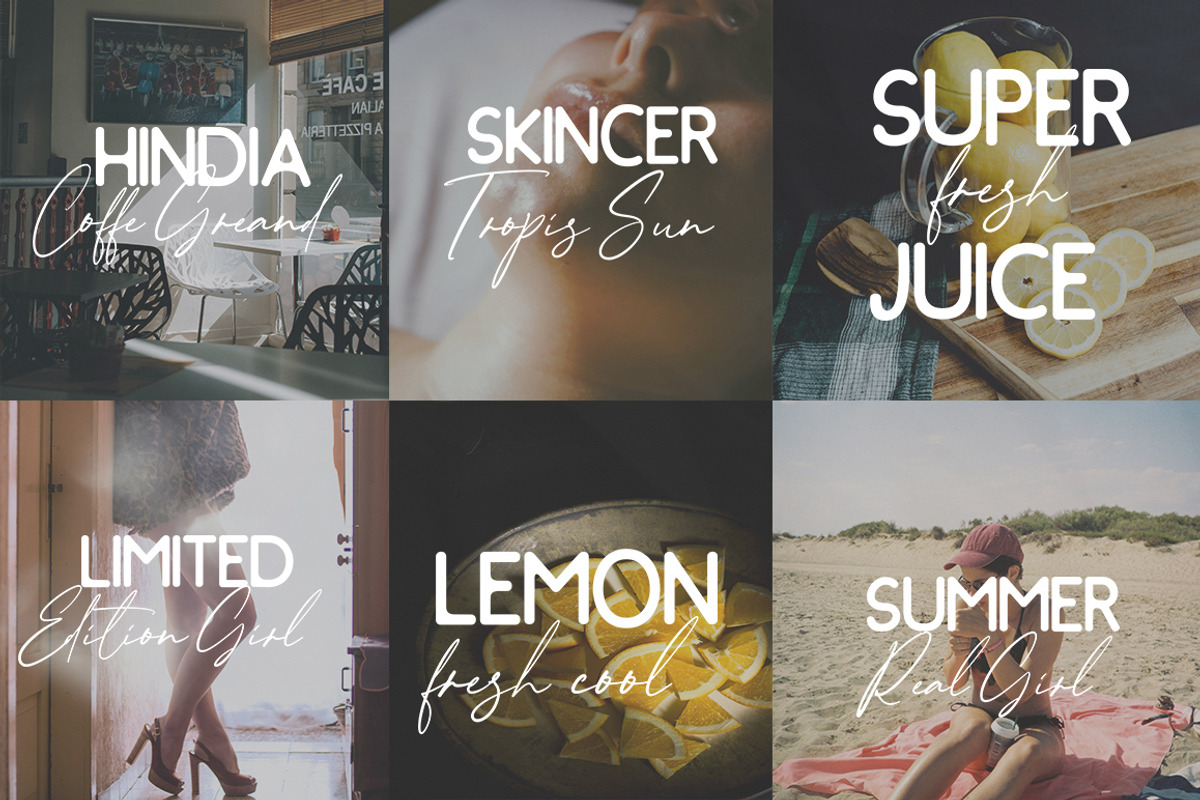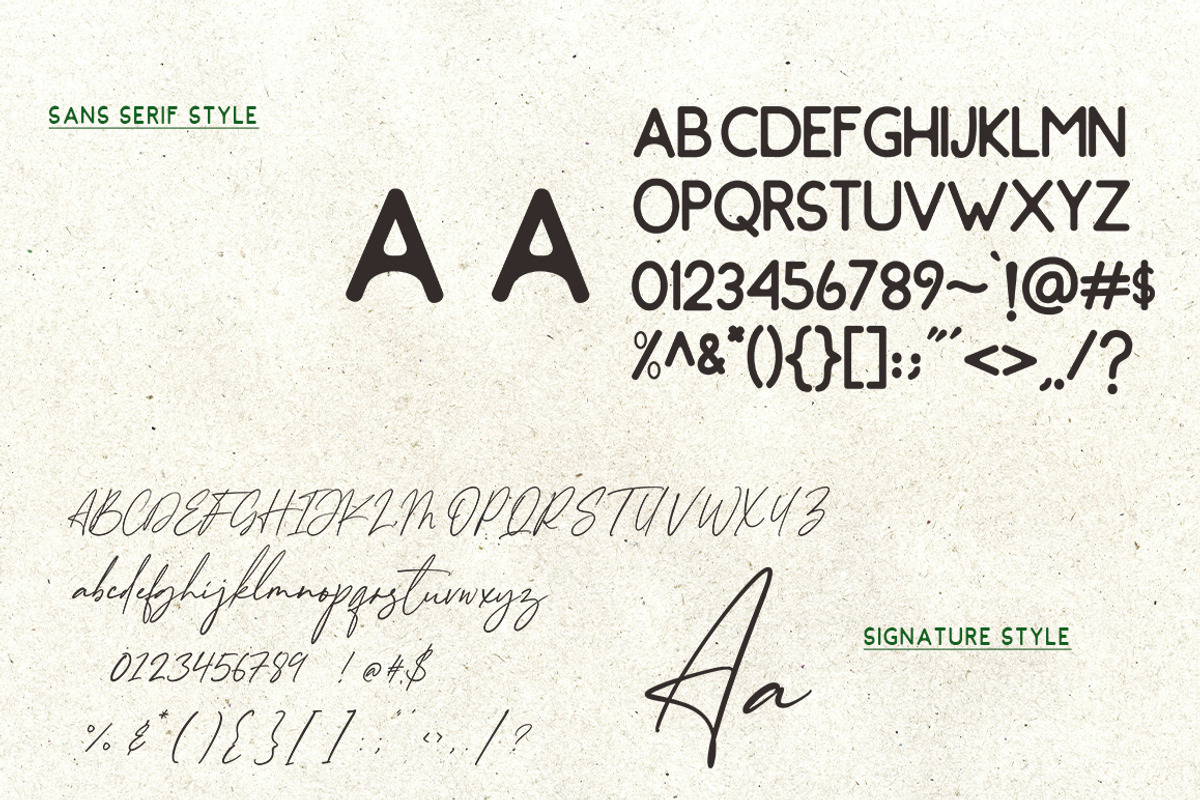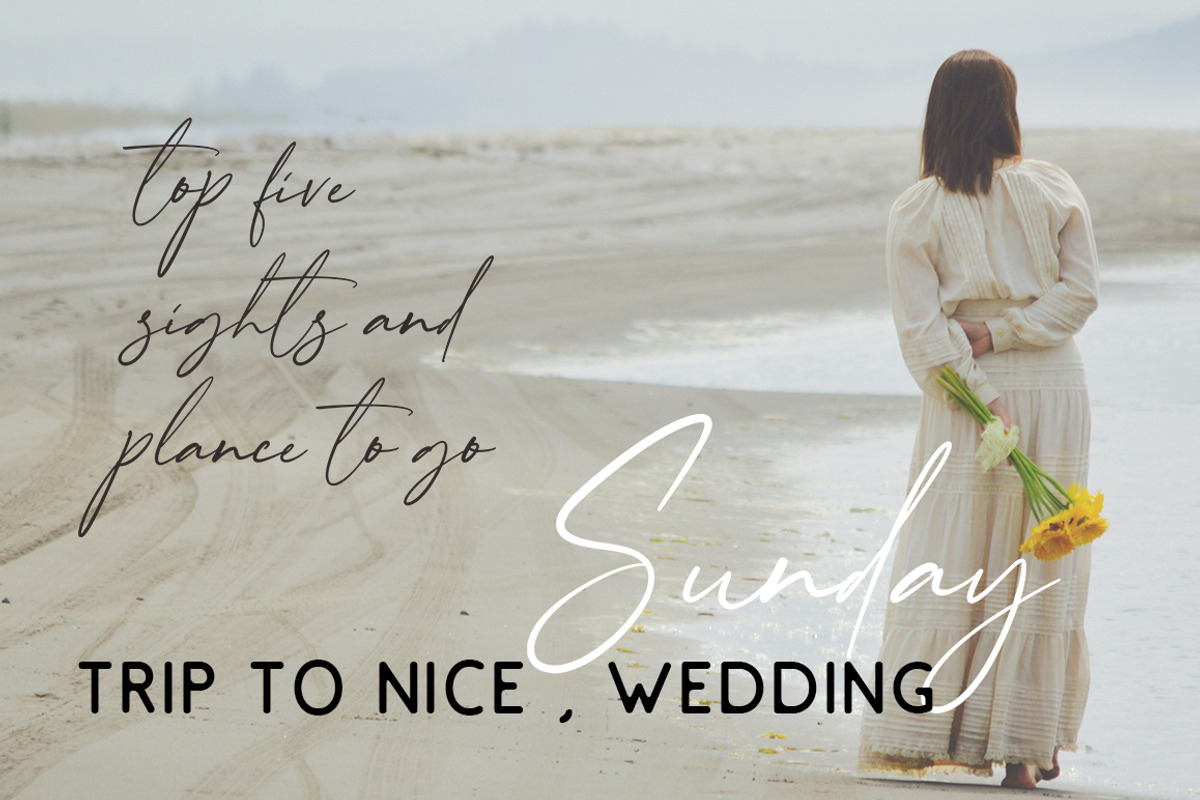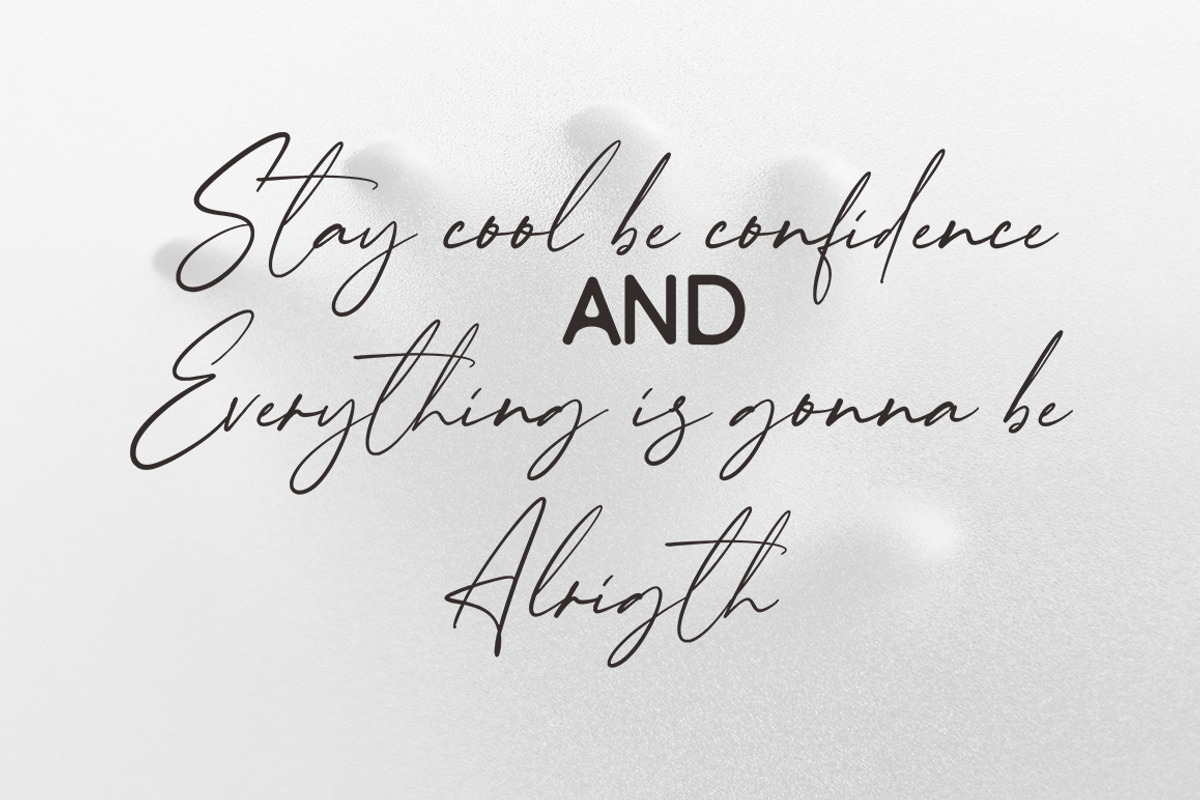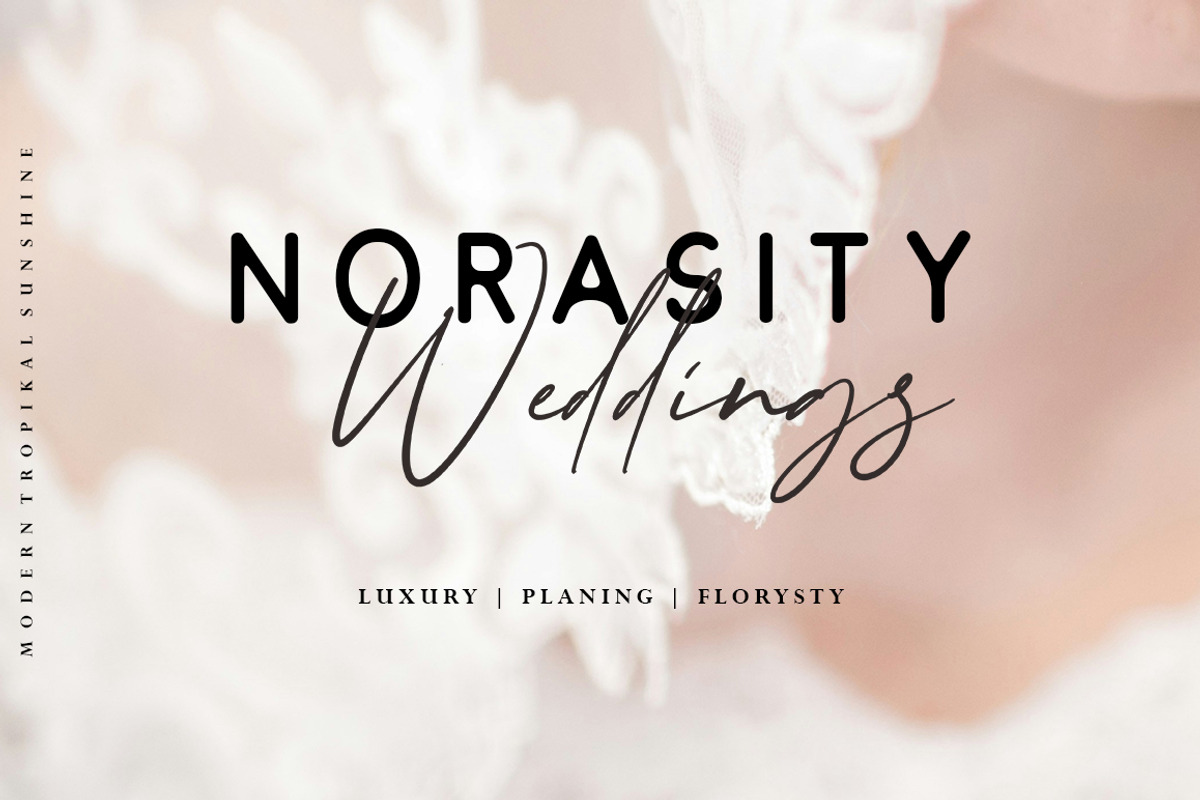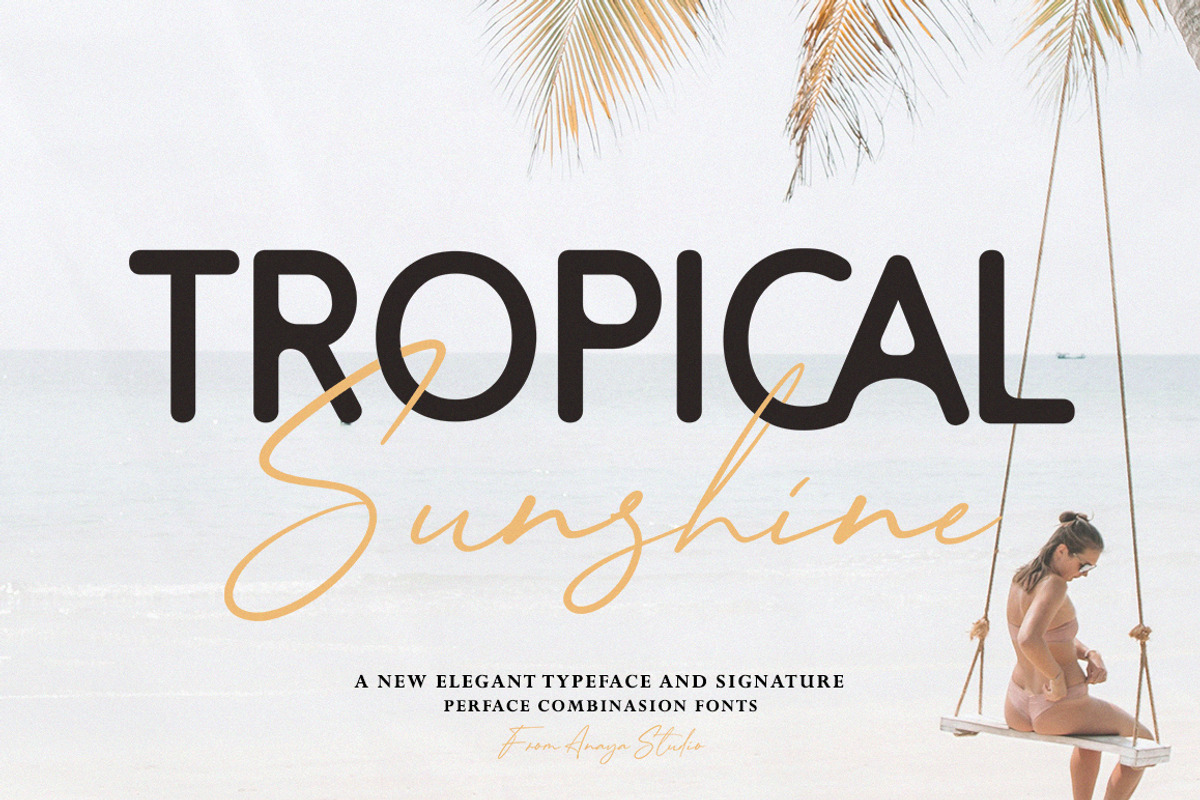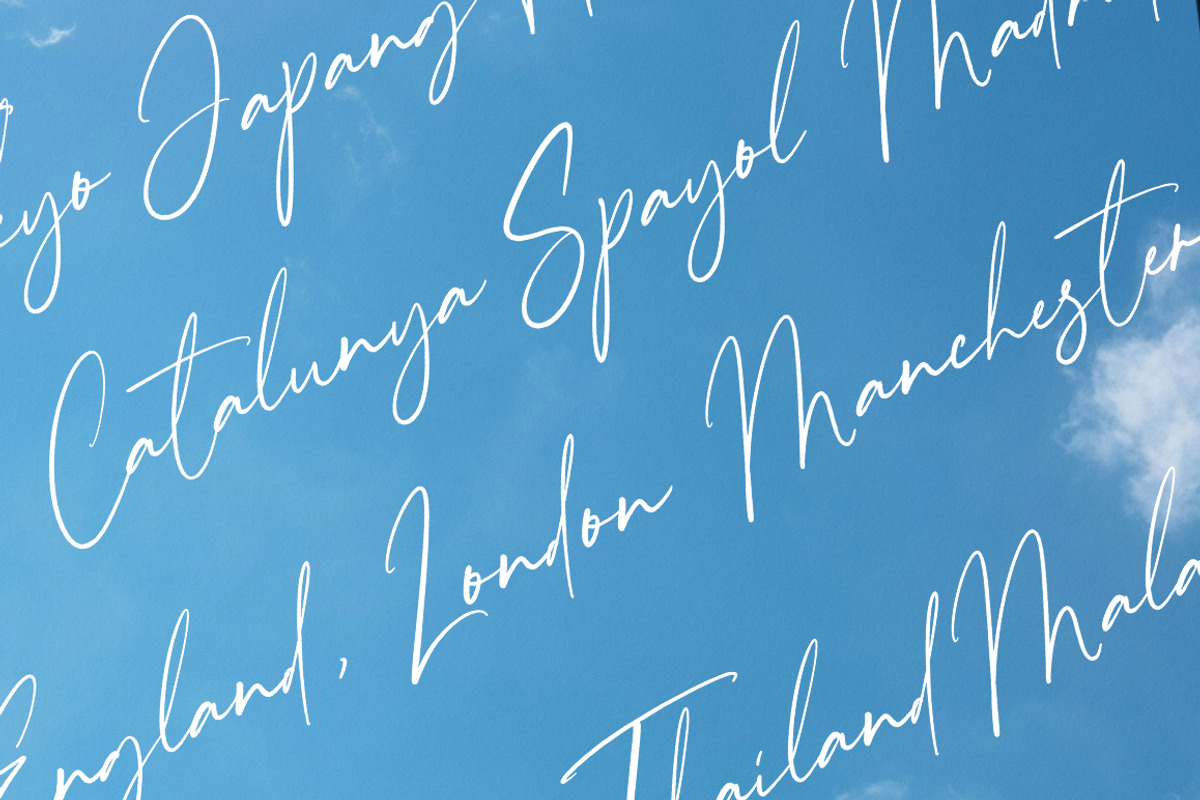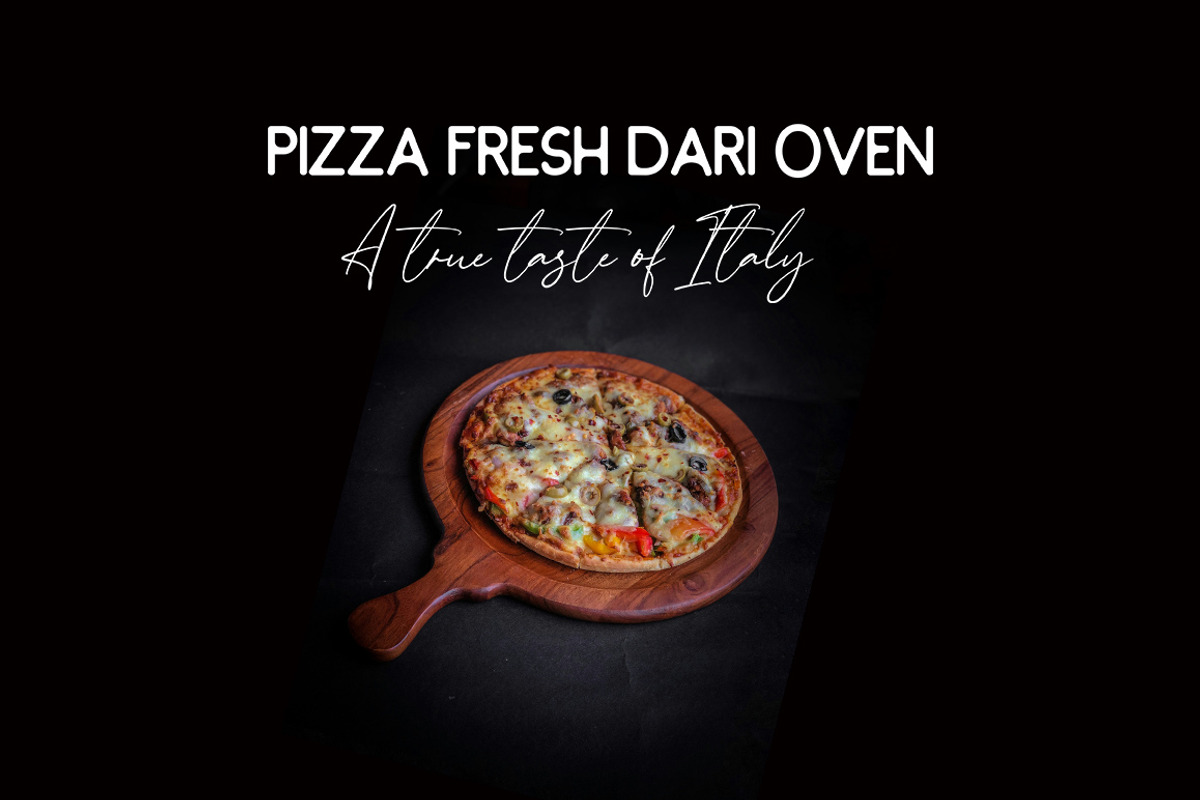
Tropical Sunshine
Tropical Sunshine – Elegant Typeface & Signature Script
Tropical Sunshine is a stunning font duo that brings the warmth of summer to your designs. Featuring a clean, modern sans-serif paired perfectly with an elegant handwritten script, this combination radiates both sophistication and relaxation.
Perfect for branding, logos, social media, wedding invitations, travel blogs, and tropical-themed projects, Tropical Sunshine captures the essence of sun-kissed elegance. The sans-serif typeface delivers strong readability, while the flowing script adds a personal, luxurious touch.
Let your designs glow with the charm of paradise—Tropical Sunshine is your go-to font for projects that need a stylish, breezy, and professional feel.